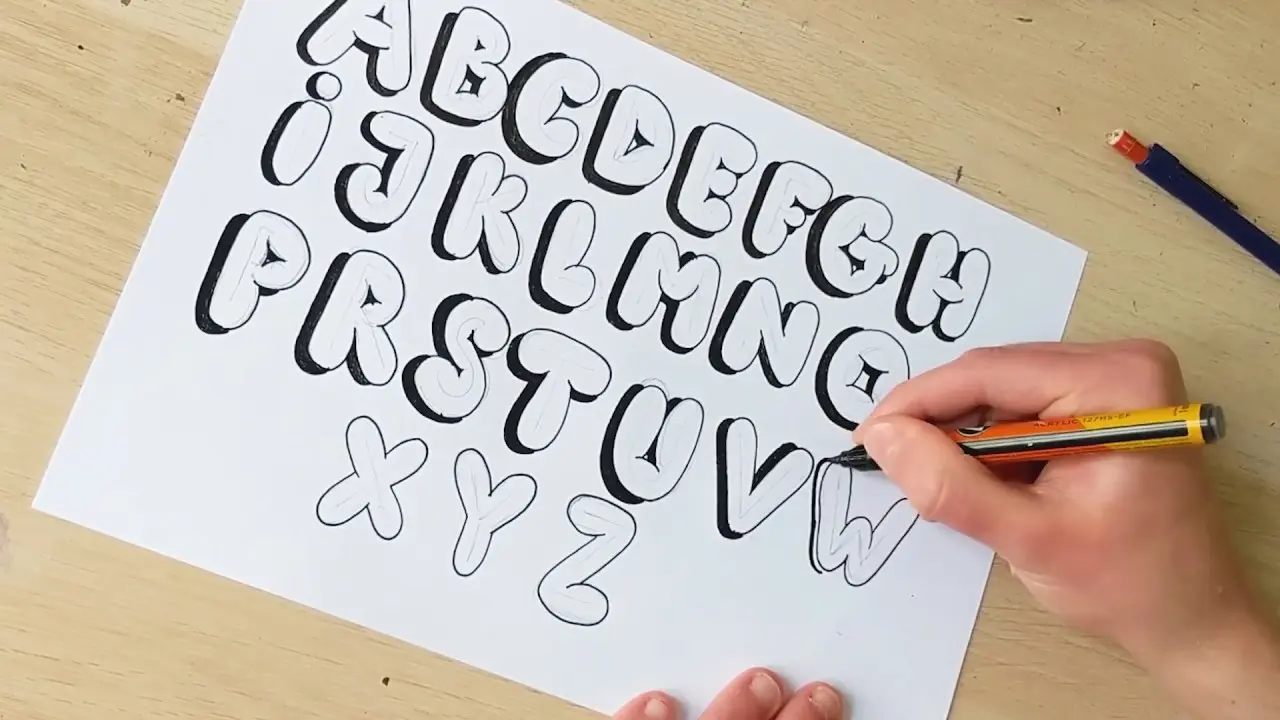
How to Do Bubble Letters Easy Step-by-Step Guide for Beginners
Learning how to do bubble letters is a fun way to make normal writing look bold, creative, and eye-catching. These rounded letters work well for posters, school projects, birthday cards, notebooks, signs, and digital artwork.
Bubble lettering does not require advanced drawing skills. With a pencil, paper, and a little practice, beginners can create smooth and attractive letters in only a few simple steps.
What Are Bubble Letters?
Bubble letters are large, rounded letters that look inflated like balloons. Artists usually create them by drawing a thick outline around a normal letter and then removing or hiding the original guide.
Unlike standard handwriting, bubble lettering focuses more on shape and style. Letters usually have soft curves, thick edges, and enough empty space inside them to remain easy to read.
Materials You Need for Bubble Lettering
You do not need expensive art supplies to start learning. A basic pencil and sheet of paper are enough for your first practice session.
You can also use an eraser, black marker, colored pencils, crayons, or highlighters. A ruler can help when you want all letters to have a similar height and position.
How to Do Bubble Letters Step by Step
The easiest way to understand how to do bubble letters is to start with a simple capital letter. Write the letter lightly with a pencil so you can erase it later.
Next, draw another line around the outside of the original letter. Keep some space between the guide letter and your new outline so the shape looks thick and rounded.
Connect the outer lines smoothly at each corner. Avoid sharp edges because rounded curves create the classic bubble effect.
Once the shape looks right, erase the original letter inside. You should now have a clean, thick bubble letter ready for outlining or coloring.
Start With Easy Capital Letters
Capital letters are usually easier for beginners because their shapes are larger and simpler. Letters such as A, B, C, D, O, P, and S are good options for early practice.
Start by writing each letter larger than your normal handwriting. Large letters give you more space to create smooth curves and make corrections.
When practicing how to do bubble letters, focus on one letter at a time instead of writing a complete sentence. This method helps you understand how different letter shapes work.
Keep the Letter Width Consistent
Consistent thickness can make bubble lettering look cleaner and more professional. Try to leave approximately the same distance between the original letter and the outer outline.
You do not need perfect measurements. Simply look at each side of the letter and adjust areas that appear much thinner or thicker than the others.
With regular practice, your hand will naturally create more balanced outlines. This skill will also help when you begin writing complete words.
Make the Corners Soft and Rounded
Rounded corners are one of the most important features of bubble lettering. Hard or pointed corners can make the design look more like block lettering.
Imagine that every letter has been filled with air. This idea can help you understand where to add curves and where to make the shape wider.
If you are learning how to do bubble letters, try drawing slowly at first. Smooth lines are easier to create when you avoid rushing through the outline.
How to Connect Bubble Letters in Words
Once you feel comfortable drawing individual letters, try placing several letters together. Write the complete word lightly before adding the bubble outlines.
Leave enough space between each guide letter. If letters sit too close together, their thick outlines may overlap and make the word difficult to read.
You can also allow some letters to touch slightly for a playful effect. Just make sure the final word remains clear and easy to understand.
Add Shadows for a 3D Effect
Shadows can make bubble letters appear deeper and more realistic. Choose one direction, such as the lower-right side, and add a dark line or shaded area there.
Keep the shadow direction consistent across every letter. Changing the shadow direction can make the design appear uneven.
People practicing how to do bubble letters can begin with simple black shadows before trying more advanced 3D effects. Even a small shadow can make a major visual difference.
Add Highlights Inside the Letters
Highlights make bubble lettering appear shiny and inflated. Draw a small white oval, curved line, or circle near the same corner of each letter.
Do not make the highlights too large. Small highlights usually create a cleaner appearance and keep the main letter color visible.
This technique works especially well when you use dark or bright colors. Combining highlights with shadows creates a stronger three-dimensional look.
Final Thoughts
Understanding how to do bubble letters becomes much easier when you break the process into simple steps. Start with a light guide, draw a thick rounded outline, erase the guide, and finish the design with color, shadows, or highlights.
You do not need perfect drawing skills to create attractive lettering. Regular practice will help you develop smoother curves, balanced shapes, and your own unique bubble letter style.